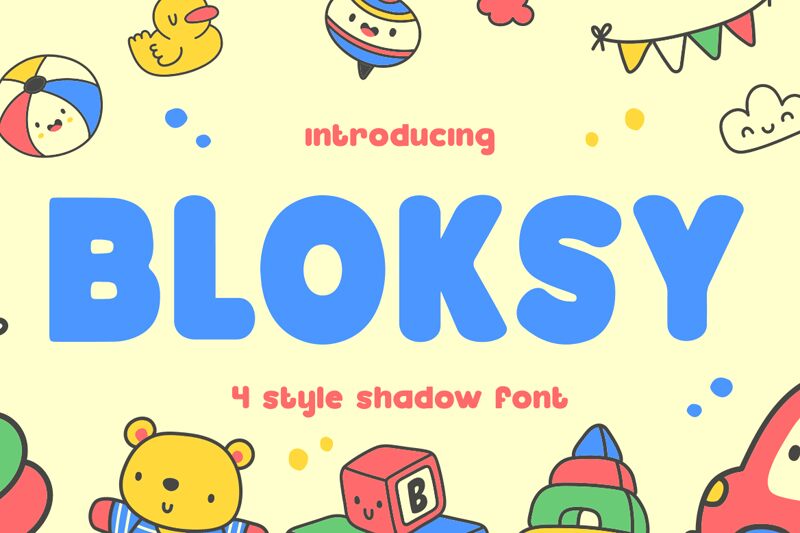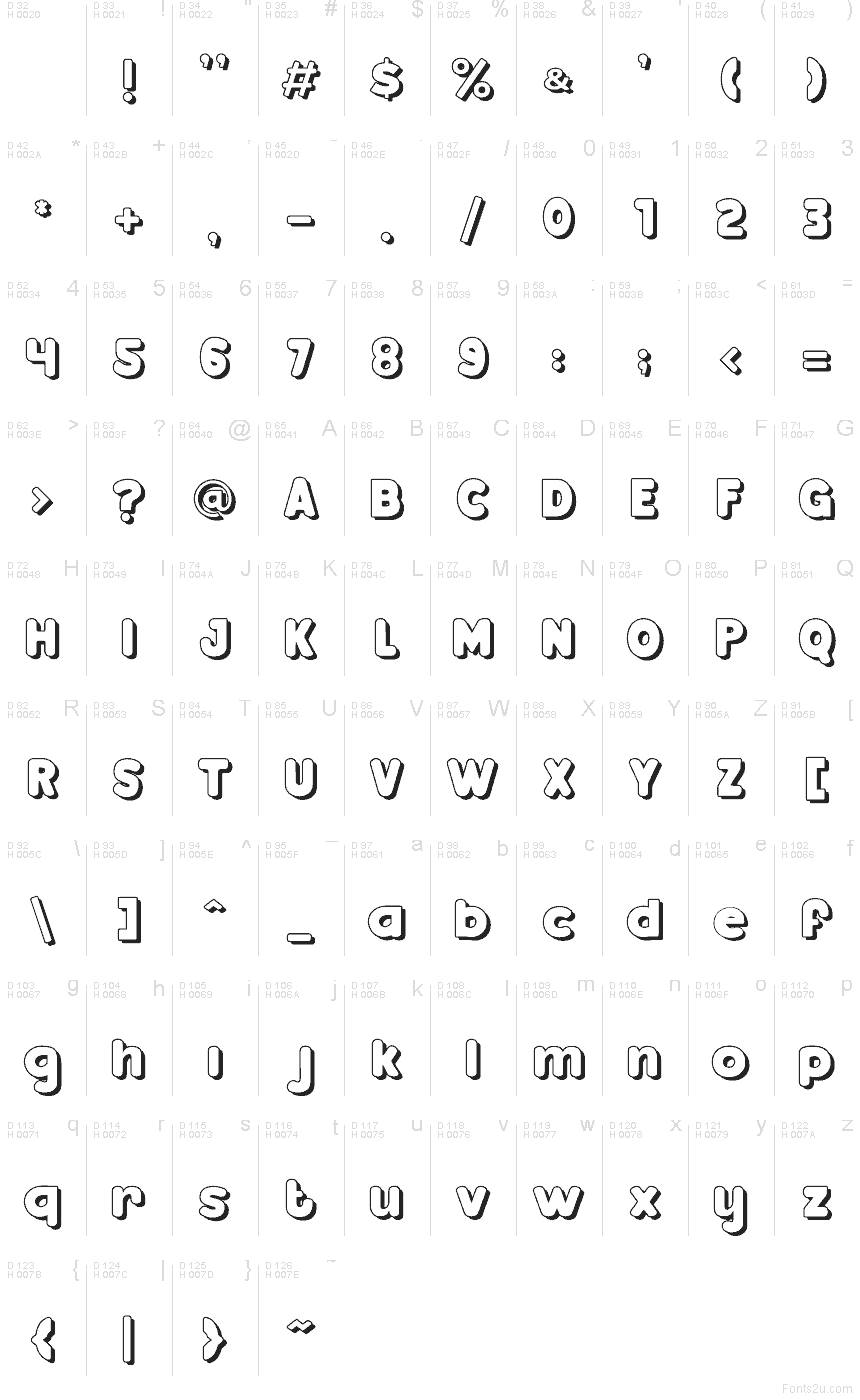
Bloksy Four by Shanaf Studio is a free cartoon bubble font with big rounded letters and a playful comic-book bounce. The forms feel soft and inflated, while the offset shadow and thick outline give the wordmarks a sticker-like punch that keeps the font lively rather than sugary.
It fits naturally in kids' packaging, snack branding, poster headlines, YouTube thumbnails, party invitations, and short game title cards, where that puffy silhouette can carry a few words with real presence. As a free font, it also makes sense for logo sketches, cover lines, and quick social graphics when you want cheerful letters that feel bold, friendly, and a little mischievous.